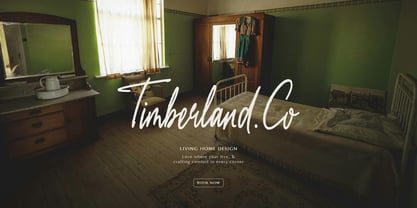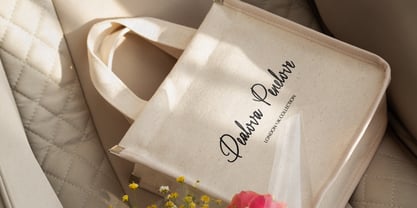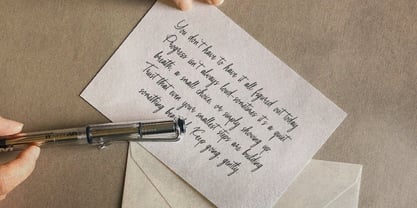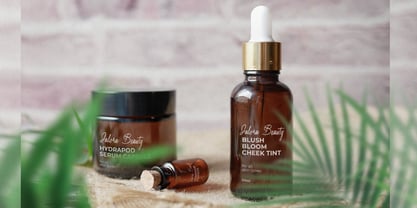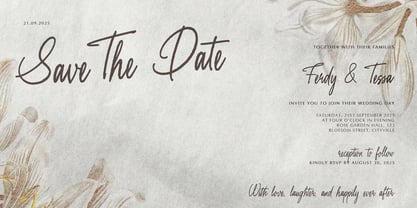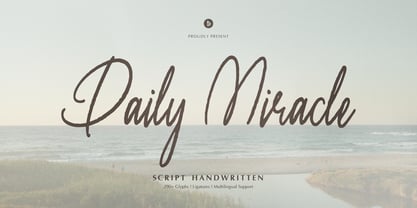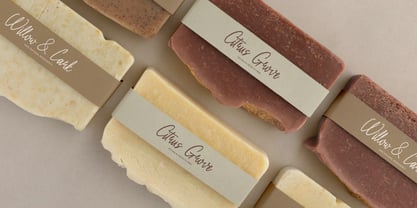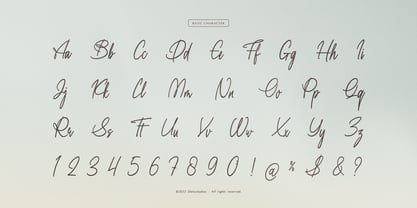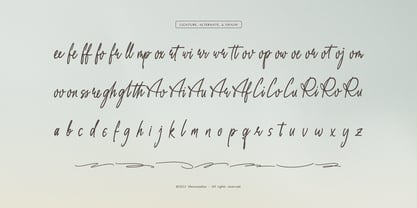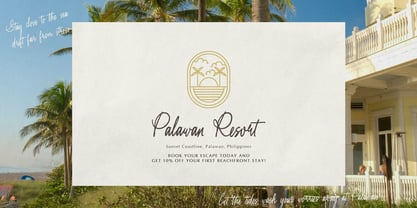
Daily Miracle
by Denustudio
The Daily Miracle Font Family was designed by Dede Nugraha and published by Denustudio. Daily Miracle contains 2 styles and family package options.
Daily Miracle | Script Handwritten, from Denustudios, suitable for any projects such as: logos, branding projects, homeware designs, product packaging, mugs, quotes, posters, shopping bags, t-shirts, book covers, name card, invitation cards, greeting cards, label, photography, watermark, special events, and all your other lovely projects that need Script Handwritten a taste.
• Regular and Italic
• Alternate and Ligature
• Fonts include multilingual support